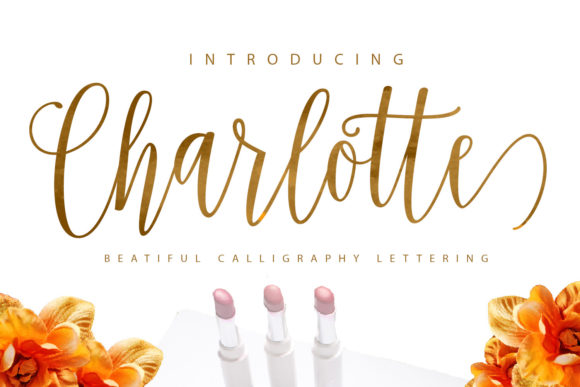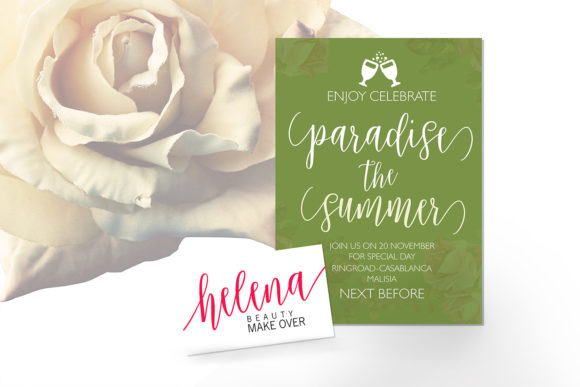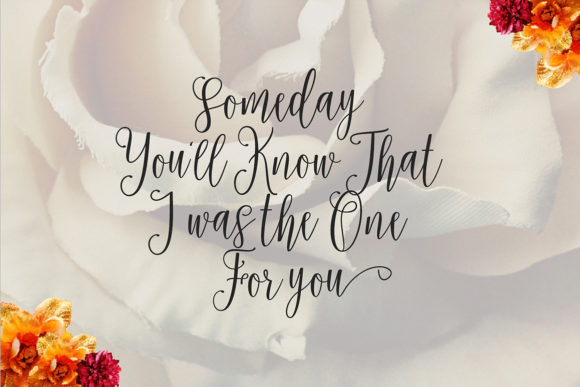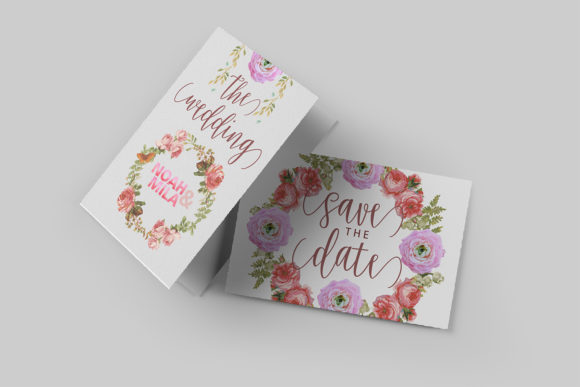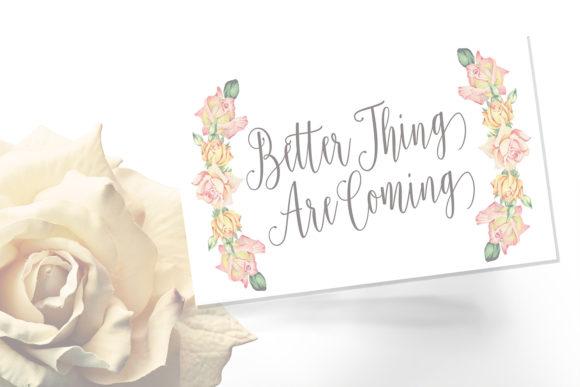
Charlotte Script Font
About Charlotte Script Font
Charlotte is a new script font with hand-lettered characters and a beautiful combination of classic and modern typography. This splendid font is great for titles, signatures, logos, wedding invitations, t-shirts, letterheads, signage, labels, newsletters, posters, badges, etc.